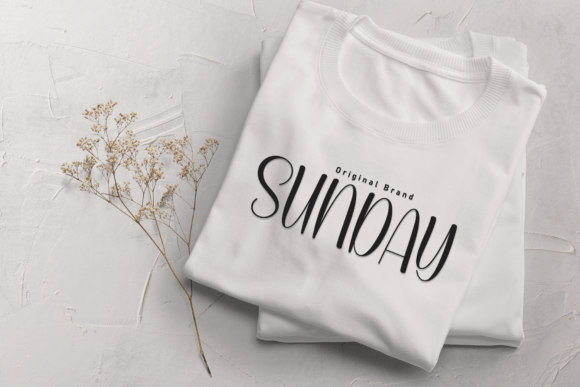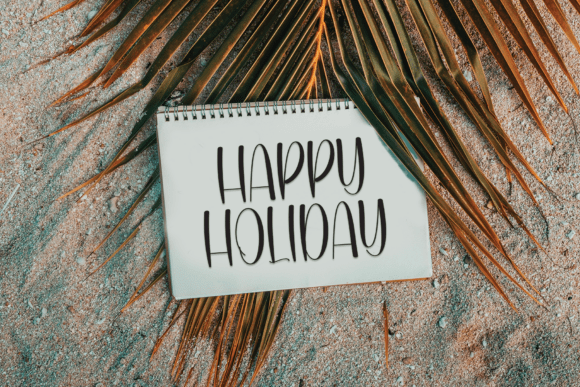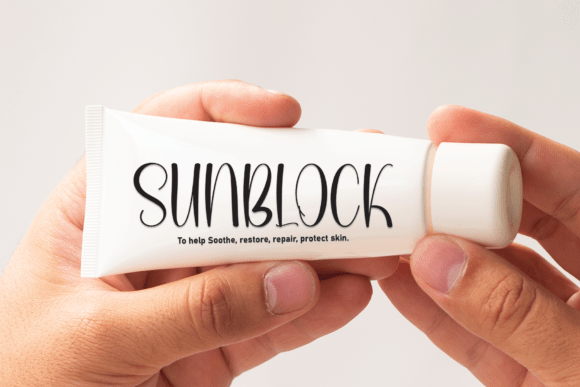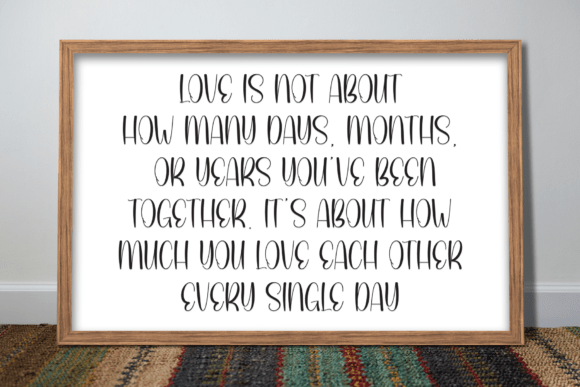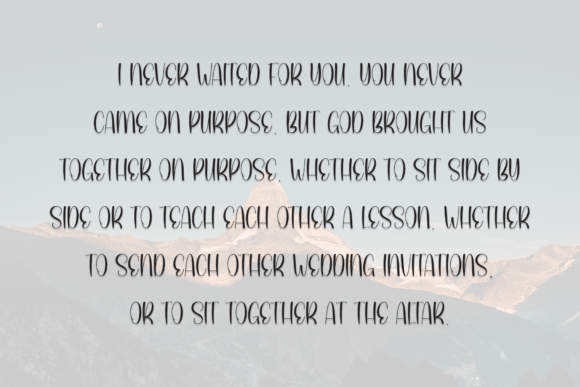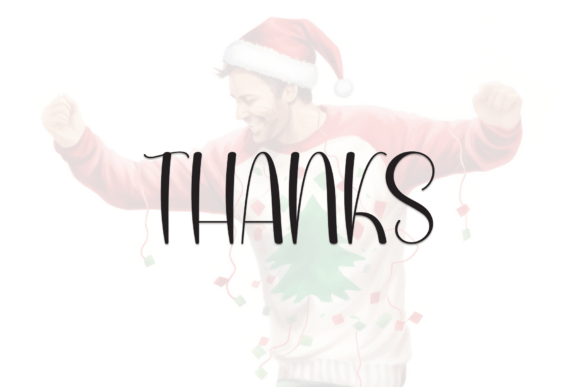
Dancing Christmas Font: A Charming Handwritten Display Font for Your Holiday Designs
Are you looking for a font that can add a touch of playfulness and joy to your holiday designs? Look no further than the Dancing Christmas Font! This charming and approachable handwritten display font is perfect for adding a delightful touch to your Christmas designs, whether you’re creating wedding invitations, greeting cards, or other holiday-themed projects.
A Whimsical Take on Traditional Typefaces
The Dancing Christmas Font offers a whimsical take on traditional typefaces, creating a visually appealing harmony between stylish fun and artistic elegance. Its adorable and engaging aesthetics are perfect for designers and crafters who want to add a touch of personality to their designs. With this font, you can create designs that are both fun and sophisticated, making it perfect for a wide range of applications.
Perfect for Holiday Designs
The Dancing Christmas Font is perfect for holiday designs, including Christmas cards, invitations, and other holiday-themed projects. Its delightful appeal makes it ideal for creating designs that are festive and fun, while its elegant and artistic qualities ensure that your designs will be sophisticated and eye-catching.
Use it for a Variety of Projects
The Dancing Christmas Font is versatile and can be used for a variety of projects, including:
- Wedding invitations and announcements
- Christmas cards and holiday greetings
- Party invitations and decorations
Why Choose the Dancing Christmas Font?
There are many reasons why you should choose the Dancing Christmas Font for your holiday designs. Here are just a few:
- Unique and charming design: The Dancing Christmas Font has a unique and charming design that will add a touch of personality to your designs.
- Versatile: This font is versatile and can be used for a wide range of projects, from wedding invitations to social media graphics.
- High-quality: This font is high-quality and will look great in any design.
Tips for Using the Dancing Christmas Font
Here are a few tips for using the Dancing Christmas Font in your designs:
- Use it with other fonts: The Dancing Christmas Font looks great when paired with other fonts. Try using it with a bold font for headings and a simple font for body text.
- Experiment with colors: The Dancing Christmas Font looks great in a variety of colors. Try using it with bright and bold colors for a fun and festive look.
- Use it in different sizes: The Dancing Christmas Font looks great in different sizes. Try using it in large sizes for headings and small sizes for body text.
The Dancing Christmas Font is a charming and approachable handwritten display font that’s perfect for adding a touch of playfulness and joy to your holiday designs. With its delightful appeal and whimsical take on traditional typefaces, this font is sure to become a favorite among designers and crafters. Whether you’re creating wedding invitations, Christmas cards, or other holiday-themed projects, the Dancing Christmas Font is a great choice.